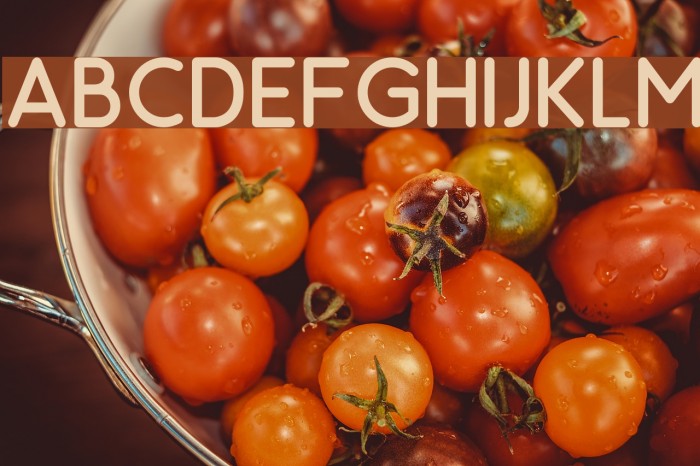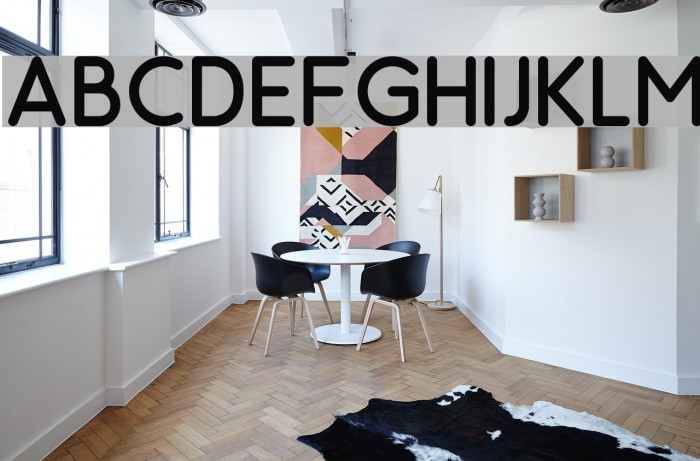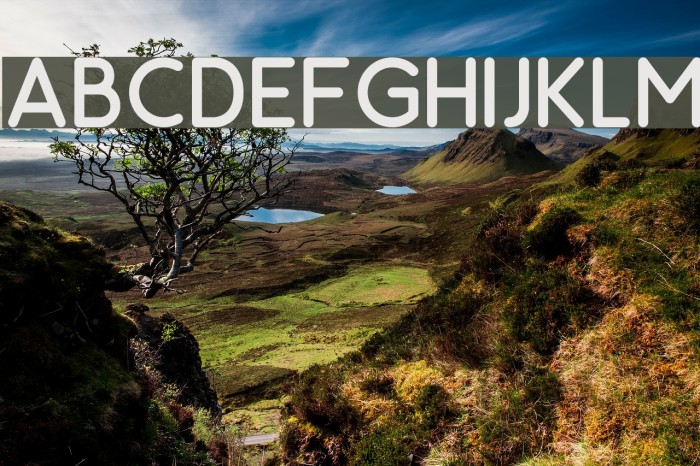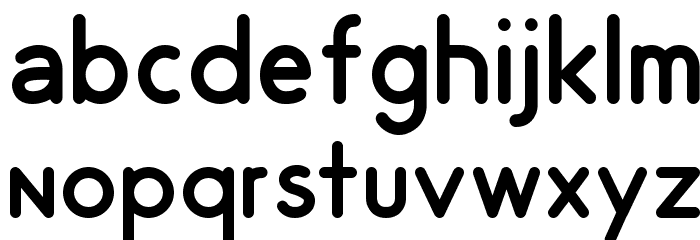
Odin Rounded Font
This font features a clean and modern aesthetic with rounded edges that lend a friendly and approachable feel. The characters are evenly spaced, providing a balanced and harmonious appearance. The uppercase letters are bold and assertive, while the lowercase letters maintain a consistent and smooth flow. The numerals are clear and legible, making them suitable for various applications. Special characters are well-designed, maintaining the overall rounded and cohesive style. This font is versatile, suitable for both digital and print media, and can be used to convey a contemporary and inviting message.
A modern, rounded font with a friendly and approachable style.
• Proposed Projects: Ideal for branding, advertising, web design, and user interfaces where a modern and friendly tone is desired.
• Category: Sans-Serif
• Contrast: Low
• Overall Style: Modern
• Use Case: Headlines, Body text, Logos